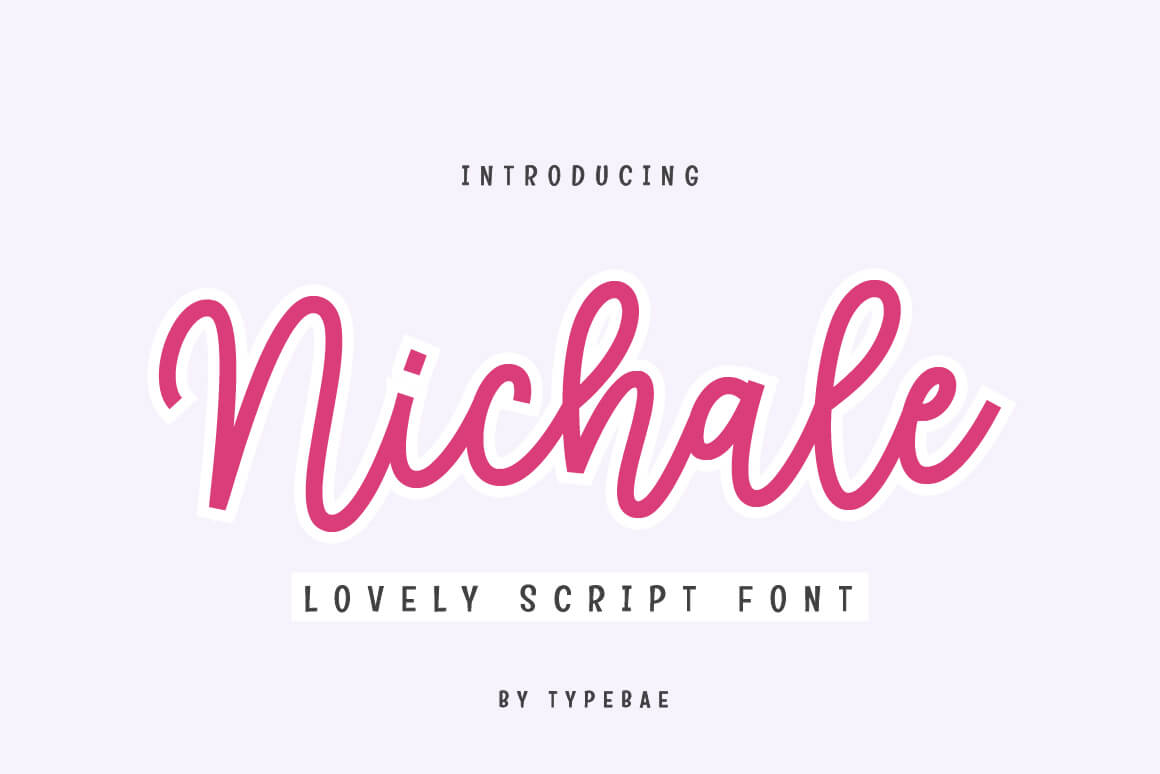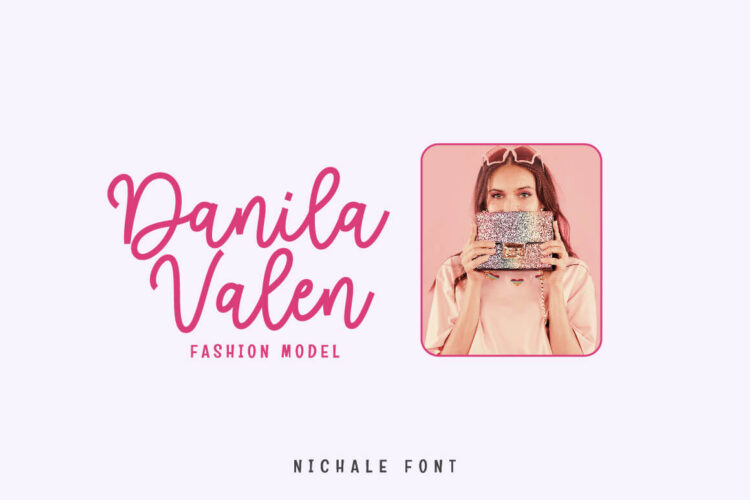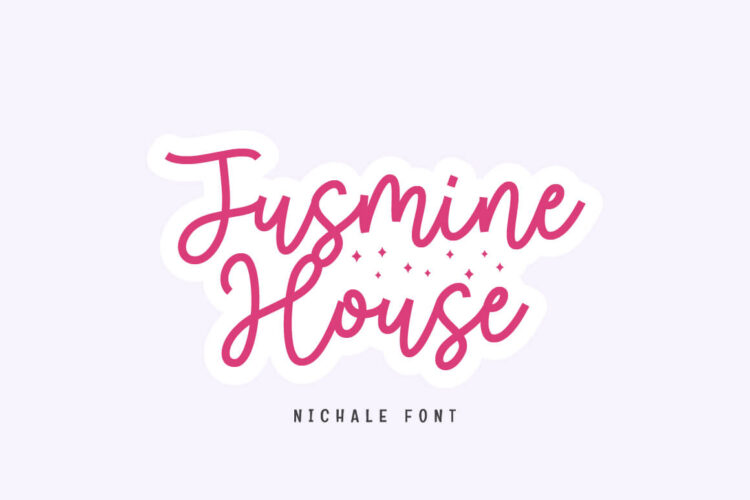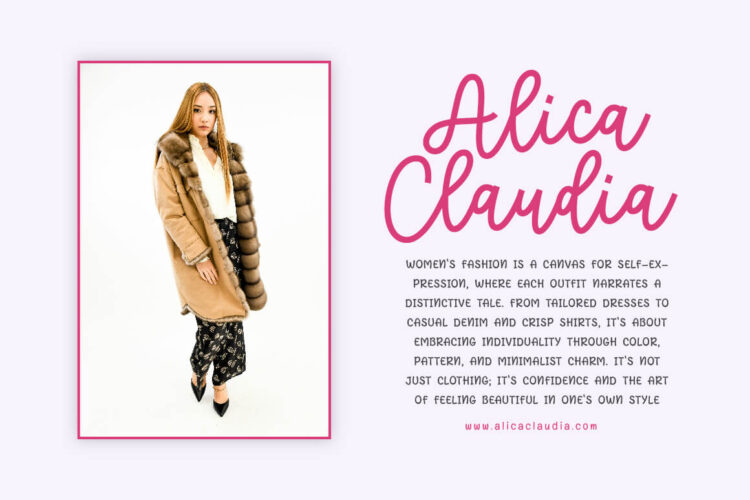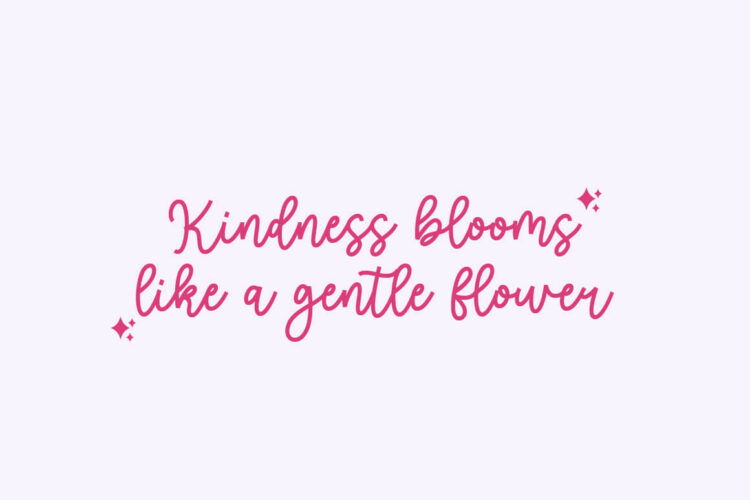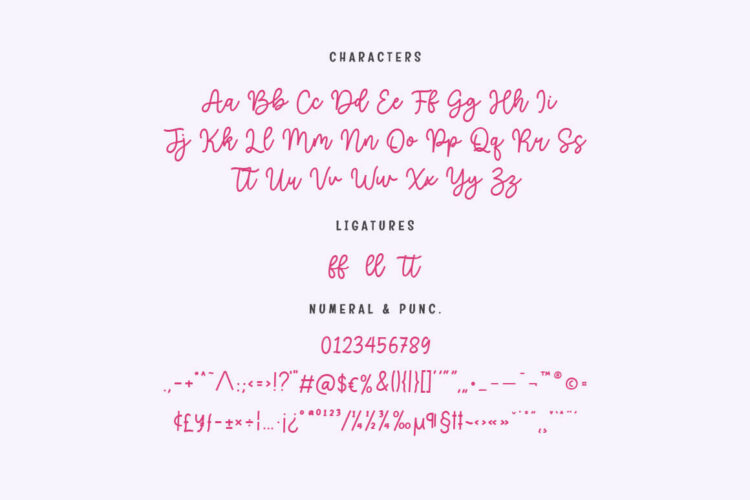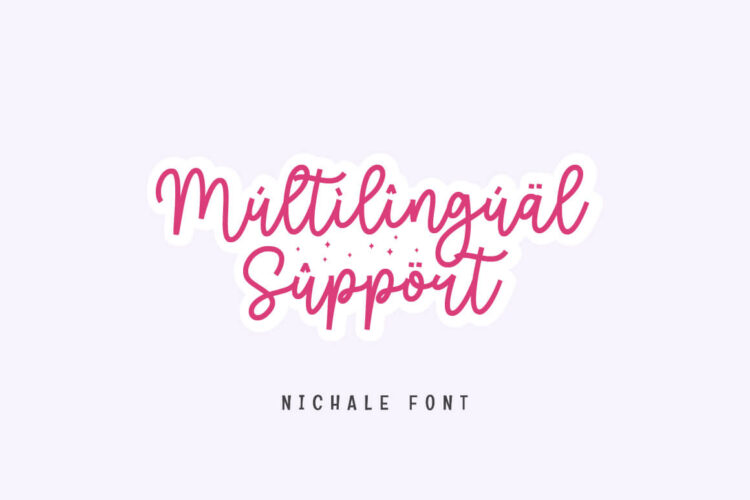
Lovely Handwritten Script Font
Nichale
Nichale is a lovely and sweet handwritten script font. This gentle font will look lovely across various design ideas. It is the best choice for creating a variety of design projects that require a touch of beauty.
• Uppercase, Lowercase, Ligatures
• Numeral, Punctuation & Symbol
• Multilingual